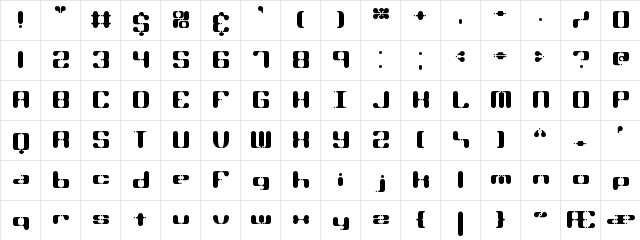
Syndrome BRK Normal
Design Context for Syndrome BRK Typeface
Syndrome BRK is a composed and adaptable typeface that performs quietly and consistently across a wide range of design contexts.